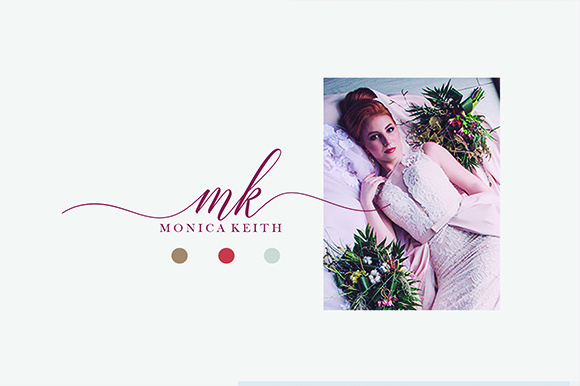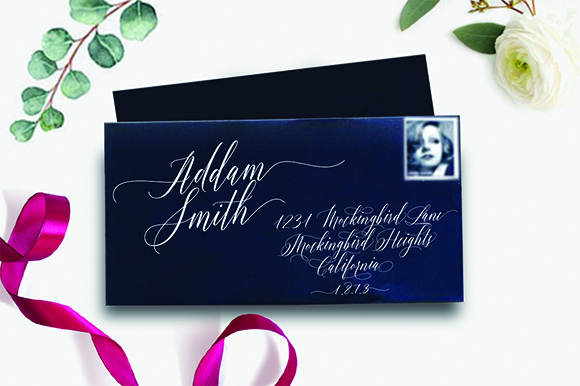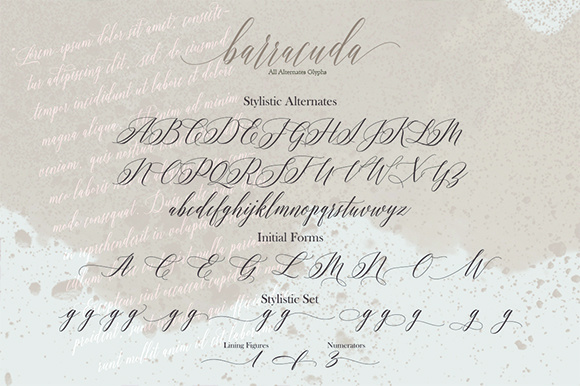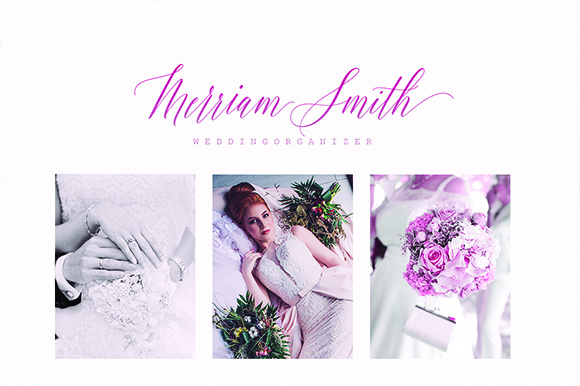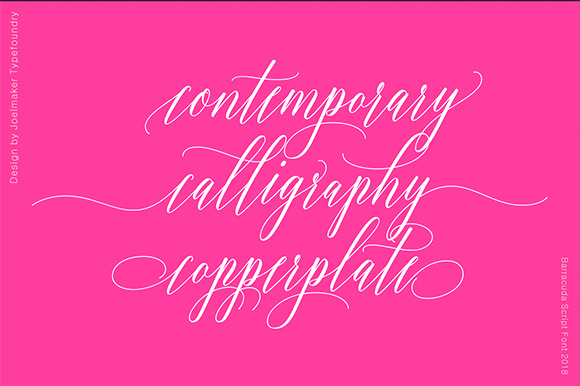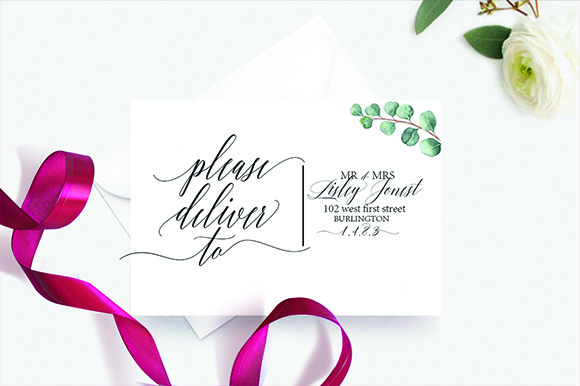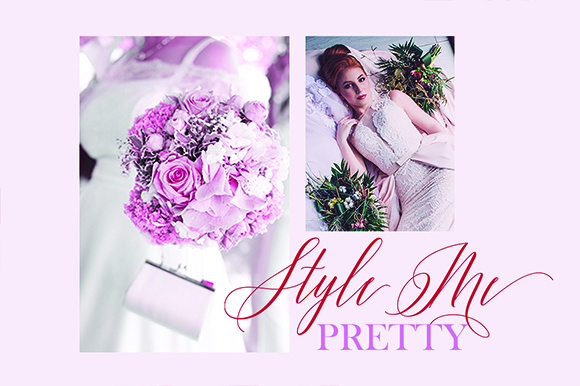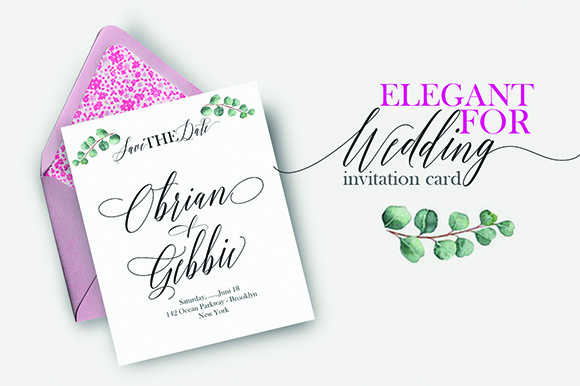
Barracuda Script Font
About Barracuda Script Font
Barracuda is a modern, handwritten calligraphy typeface. It is has an elegant feel which makes it perfect for logos, quotes, invitations, signatures, and every other design that needs a feminine touch.